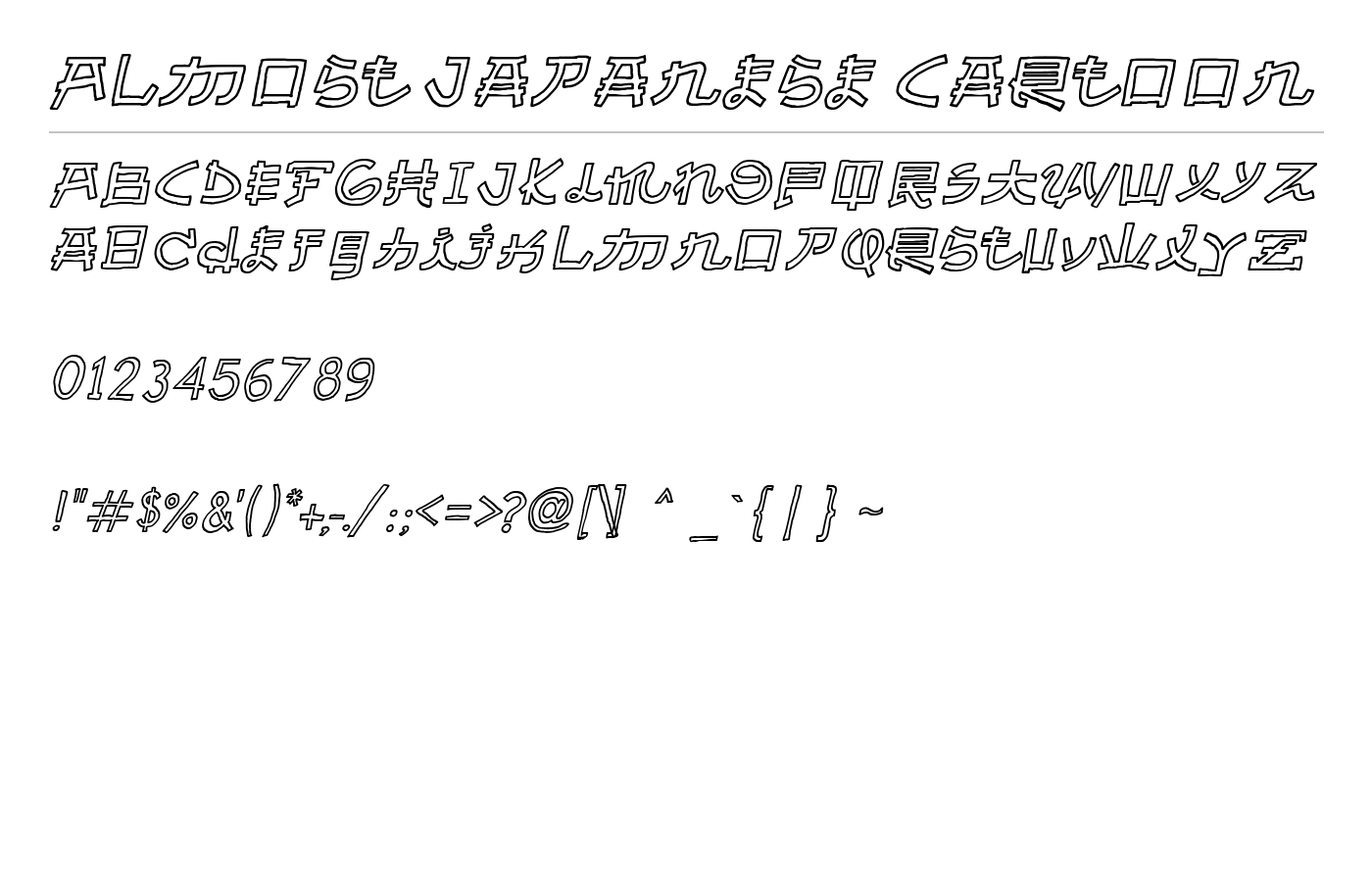
Almost Japanese Cartoon is a playful sans serif display font featuring a hand-drawn style with irregular, angular letterforms that evoke a fun, comic-like energy. Its lightweight strokes and outline design, combined with slight italic slant and quirky shapes, make it ideal for eye-catching headlines, posters, or creative designs seeking a youthful, energetic vibe with a subtle East Asian-inspired flair. This font works well for informal branding and entertainment projects where a distinctive, animated look is desired.
Almost Japanese Cartoon Font
About Almost Japanese Cartoon Font
| Font family | Almost Japanese Cartoon Font |
| Designer | Galdino Otten 55 83 99806 7774 |